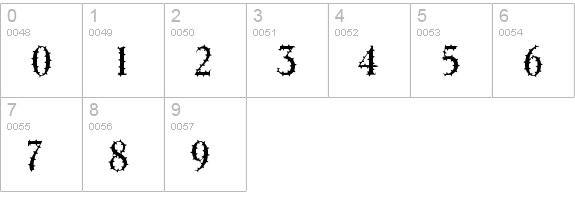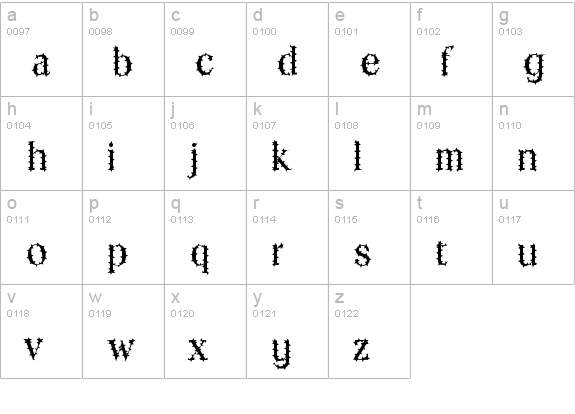
Barbed SF is a striking and edgy font that exudes a modern and futuristic vibe. Its sharp, angular lines give it a bold and dynamic appearance, making it perfect for designs that demand attention. This font is versatile and can be used for a variety of projects, from posters to logos to social media graphics. One of the best things about Barbed SF is that it is free to download at FontsMarket.com. This means that you can easily add this unique and eye-catching font to your collection without any cost. Whether you're a designer looking to spice up your projects or someone who simply appreciates good typography, Barbed SF is a fantastic addition to any font library. Download it today and unleash your creativity with this modern and impactful typeface.